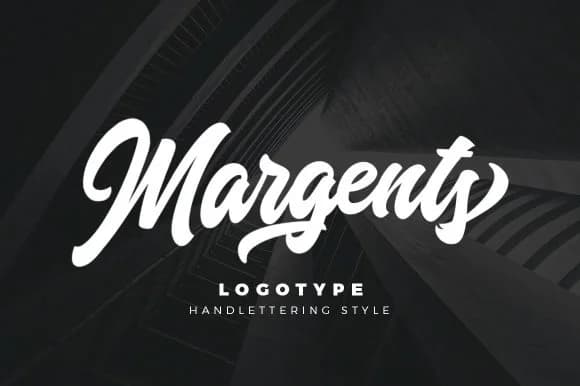
Margents by ShowUp! Typefoundry is a bold, playful handwritten script that brings genuine character to any project needing warmth and a human touch. The loose letterforms and energetic baseline variations give designs an authentically hand-drawn quality, making it especially suited for work where that personal connection matters. There's nothing stiff about it, instead you get the sense of a designer who sketched something right there on the page, energy and all.
You'll find it works beautifully for wedding invitation suites, where its spirited rhythm feels both elegant and approachable at once. It's also a strong pick for custom Etsy shop branding, hand-lettered greeting cards, and packaging for small-batch or artisan products where personality carries as much weight as the product itself. Social media posts gain instant character, and event posters using Margents naturally stand out without needing to feel slick or corporate. The script has that rare quality of feeling friendly without ever becoming too casual.
- Elegant, Flowing, Margents Script
Margents Font is a script font that shines as a display or heading face. Pair it with a clean sans-serif or serif font for body text β the contrast creates a clear hierarchy while the two styles stay balanced and easy to read.
Margents Font